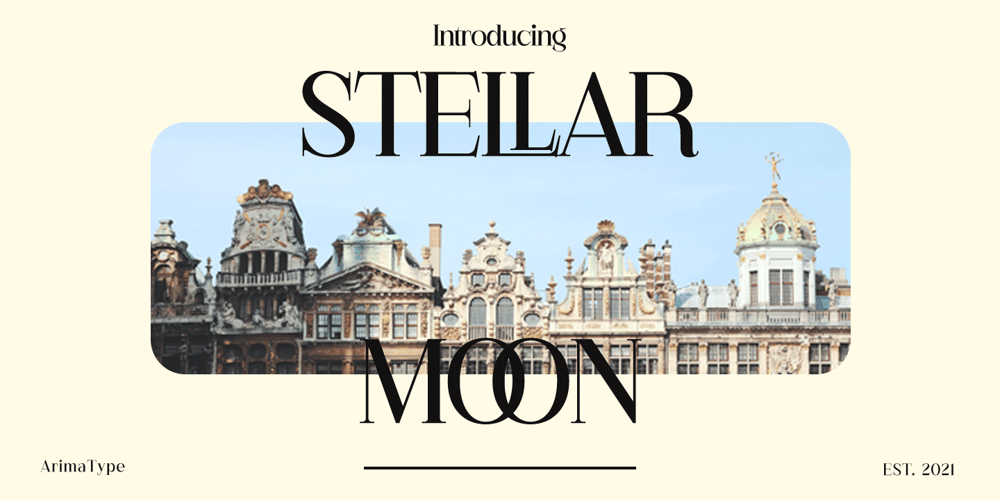
Stellar Moon
Stellar Moon font
Stellar Moon Font Family was designed by Amri Mauludin and published by ArimaType. Stellar Moon contains 1 styles and family package options. Stellar Moon is an authentic, bold and simple serif font. Whatever the topic, this font will be a wonderful asset to your font library, as it has the potential to enhance any creation.If you have questions, please contact us at arimatype@gmail.com